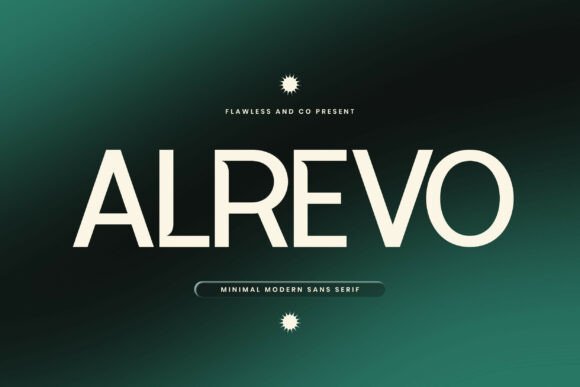
The Alrevo Font: A Modern Sans Serif for Creative Minds
I’ll never forget the struggle I faced while working on a branding project for a trendy new cafe. My client wanted a font that was modern, clean, and would appeal to a young audience, but I was coming up blank. That’s when I stumbled upon the Alrevo font, and it instantly clicked. Its sleek lines, balanced proportions, and smooth geometric forms made it the perfect fit for the project. In this article, I’ll share my experience with Alrevo, its features, and how you can make the most of it in your designs.
An Honest Review of Alrevo
What I Love About Alrevo ✨
- ✅ Clean and Minimal Aesthetic: Alrevo’s simplicity is its greatest strength. The font’s clean lines and minimal ornamentation make it perfect for designs where you want the content to shine.
- ✅ Versatility: Whether you’re working on a digital project or a print design, Alrevo adapts seamlessly. Its balanced proportions ensure that it looks great in various contexts.
- ✅ Timeless Appeal: Unlike some trendy fonts that may look dated in a few years, Alrevo has a timeless quality to it. Its geometric forms and smooth curves give it a classic feel that’s hard to resist.
- ✅ Ease of Reading: The font’s clear and legible design makes it easy to read, even at smaller sizes. This is particularly useful for body text or long-form content.
While Alrevo is an excellent font, it’s not without its quirks. For instance:
- 🤔 Limited Character Variations: Alrevo doesn’t have an extensive range of character variations, which might limit its use in certain creative projects that require a lot of customization.
- 🤔 Not Ideal for All Caps: While Alrevo looks great in mixed case or lowercase, it can appear a bit stark or cold when used in all caps. You might need to add additional design elements to make it more visually appealing.
The Backstory of Alrevo
Alrevo was designed with the modern creative in mind. Its creator aimed to craft a font that was not only beautiful but also highly functional. Inspired by the geometric shapes and clean lines of modern architecture, Alrevo was born out of a desire to create a font that would stand the test of time. Whether you’re working on a branding project, a website, or a print design, Alrevo provides a solid foundation for your creative endeavors.
Q: Is Alrevo suitable for body text?
A: Yes, Alrevo is highly legible and can be used for body text. Its clean design ensures that it remains easy to read even at smaller sizes.
Q: Does Alrevo support OpenType features?
A: Yes, Alrevo supports OpenType features such as ligatures and stylistic alternates. You can access these features in compatible software like Adobe Photoshop and Illustrator.
Q: Is Alrevo available in different weights?
A: Alrevo comes in a range of weights, making it versatile for various design applications. You can use the lighter weights for headings and the heavier weights for emphasis.